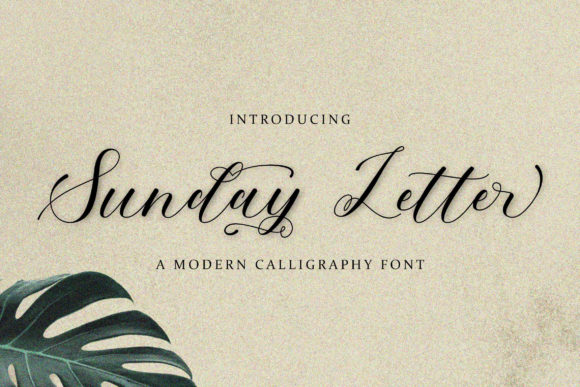
Journey into the realm of captivating typography with Sunday Letter Font, a script font family that exudes charm and elegance. Its graceful strokes and flowing curves evoke a sense of timeless sophistication, making it the perfect choice for those seeking a handwritten touch in their designs.
Immerse yourself in the world of pop art with Sunday Letter Font, the ultimate font for creating eye-catching designs that resonate with your audience. Whether you're crafting wedding invitations that exude romance or thank you cards that convey heartfelt gratitude, this font will elevate your designs to new heights.
Experience the versatility of Sunday Letter Font, a font that seamlessly adapts to a multitude of creative projects. From quotes that inspire and uplift to greeting cards that spread joy, this font will effortlessly enhance your designs with its timeless appeal. Unleash your creativity and let Sunday Letter Font guide you to typographic excellence.
Unlock the full potential of Sunday Letter Font, a font crafted with meticulous attention to detail. Every glyph and swash is meticulously encoded, ensuring effortless access to a treasure trove of creative possibilities. Bring your designs to life with the ease and efficiency that Sunday Letter Font provides.